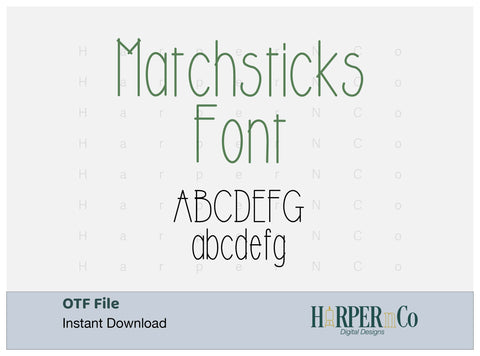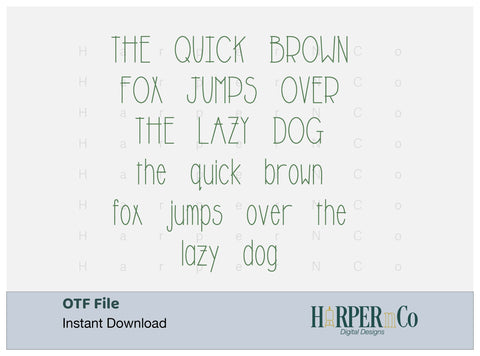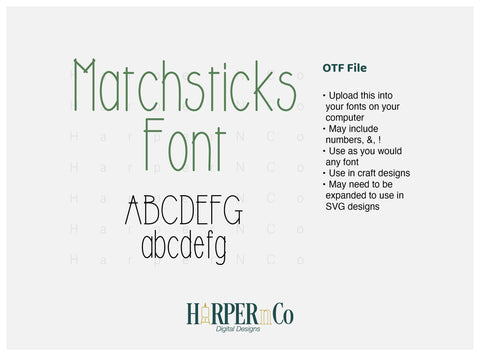
This font will be perfect for all your Craft projects! Use it to make custom shirts, keychains, gifts, tags, bags, and whatever else you can think of!